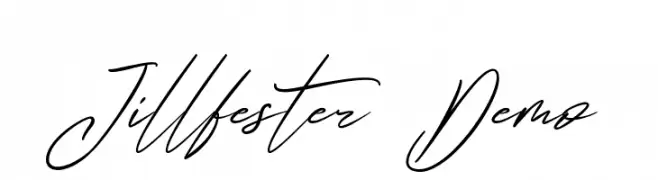
A stylish and elegant script font with flowing, cursive strokes.
A highly stylized, decorative script font with sharp, angular strokes and dramatic flourishes.
An ornate and decorative script font with elegant swirls and flowing lines.
An elegant, flowing script font with a natural handwritten style.